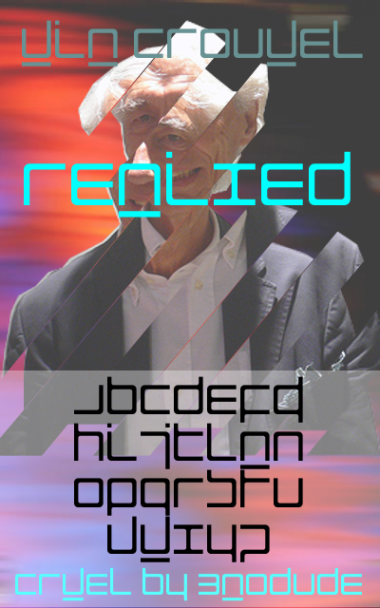
• Based on Wim Crowel's New Alphabet. Ignoring his initial requirement of 45-degree angles, this font emphasizes smoothness and fluidity. Includes experimental Greek + (cluttered and ugly) Bopomofo, two of the few non-Latin scripts I can write.